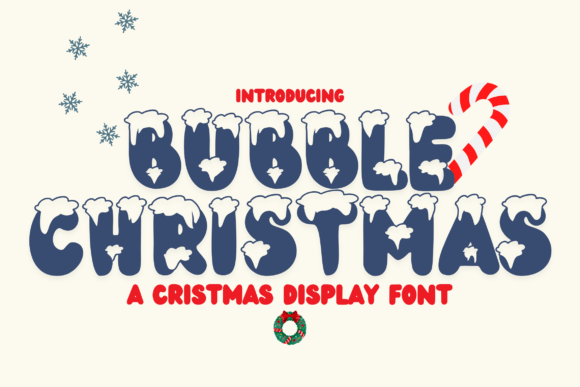
Get Ready to Deck the Halls with the Bubble Christmas Font
As the festive season approaches, creatives around the world are busy conjuring up magical designs that capture the essence of Christmas. For some, it’s the twinkling lights that spark inspiration, while for others, it’s the sound of sleigh bells that sets their imagination ablaze. For me, it’s the sight of a perfectly crafted Christmas card, adorned with a playful typeface that screams ‘festive fun’.
Enter the Bubble Christmas Font, a delightful typeface that effortlessly infuses your designs with the joy and wonder of Christmas. With its playfully rounded letters, this enchanting font is a must-have for any designer looking to add a whimsical touch to their holiday projects.
Whether you’re designing Christmas cards, gift tags, or holiday invitations, the Bubble Christmas Font is the perfect addition to your design arsenal. Its radiant, festive charm and cozy undertones make it an invaluable asset for any creative looking to make this holiday season truly unforgettable.
Bubble Christmas Font Key Features
- Unique Characteristics: The font features a whimsical, hand-drawn design with a bubble-like aesthetic, adding a touch of playfulness to holiday-themed projects.
- Characters and Glyphs: The font includes a range of characters, including uppercase and lowercase letters, numbers, punctuation marks, and holiday-themed symbols.
- Style Variations: The font offers a single style variation, providing a consistent look across different text sizes and arrangements.
Bubble Christmas Font Review
Overall, I’d say the Bubble Christmas Font is a delightful addition to any holiday design project ✨. Its bubbly, playful style instantly conveys a festive atmosphere, making it perfect for Christmas-themed materials like cards, invitations, and social media graphics.
However, I do have a few concerns ⚠️. Firstly, the font’s limitations in terms of font size may become apparent when used in large-scale designs. It’s also worth noting that the font’s style, while adorable, may not be suitable for more formal or professional designs.
Here are a few things to consider when using the Bubble Christmas Font:
- May not be suitable for large-scale designs due to font size limitations
- Not recommended for formal or professional designs
- Font style may become too playful for some designs
Overall, I’d give the Bubble Christmas Font 4 out of 5 stars. While it’s not perfect, its unique style and flexibility make it a great addition to any holiday design project ✨.
To get the most out of the Bubble Christmas Font, use it for:
- Christmas card designs
- Invitations and party decorations
- Wedding stationery and decorations